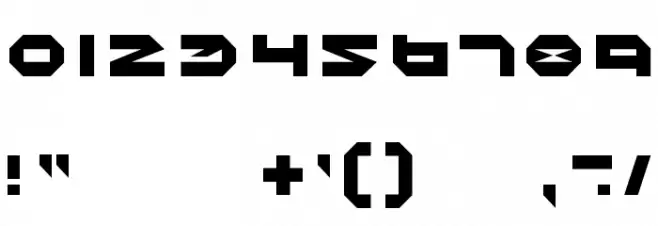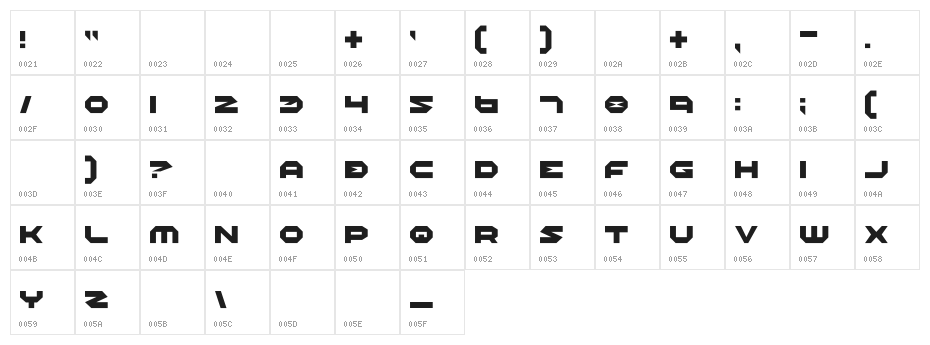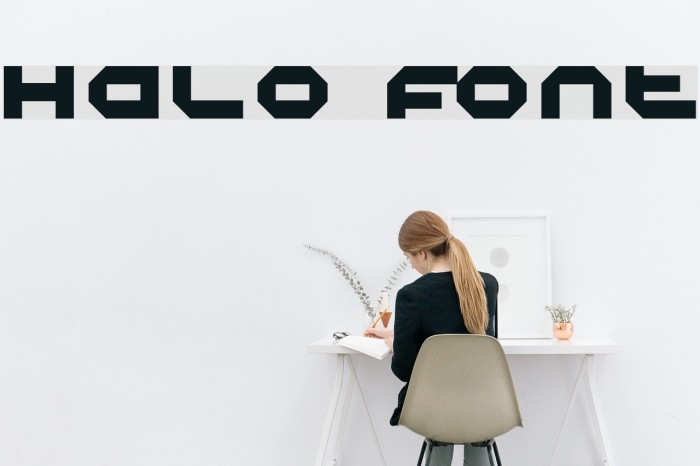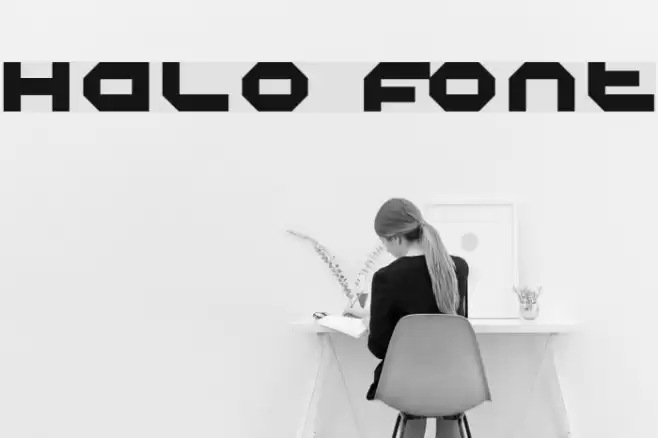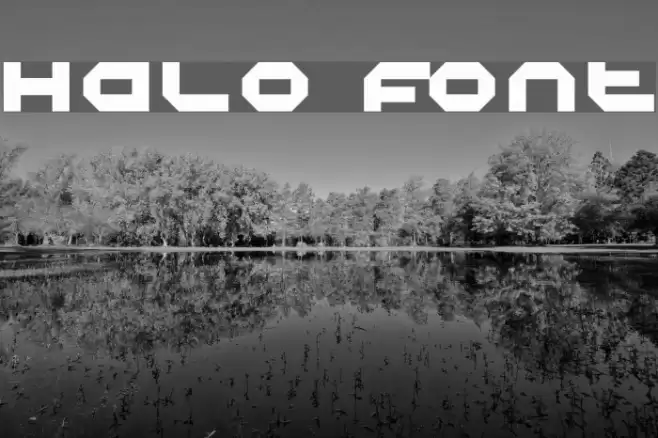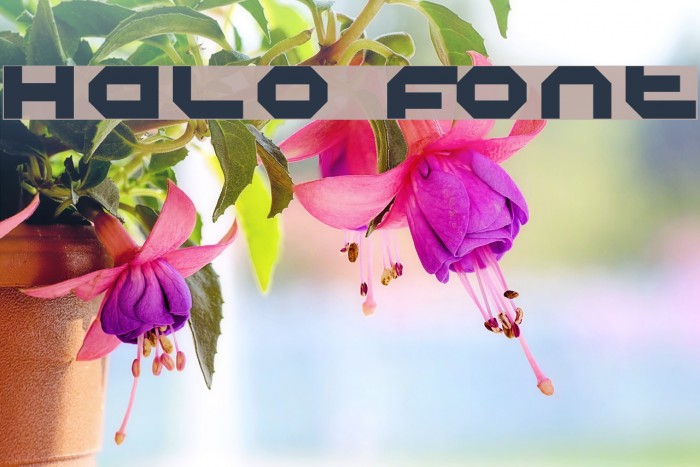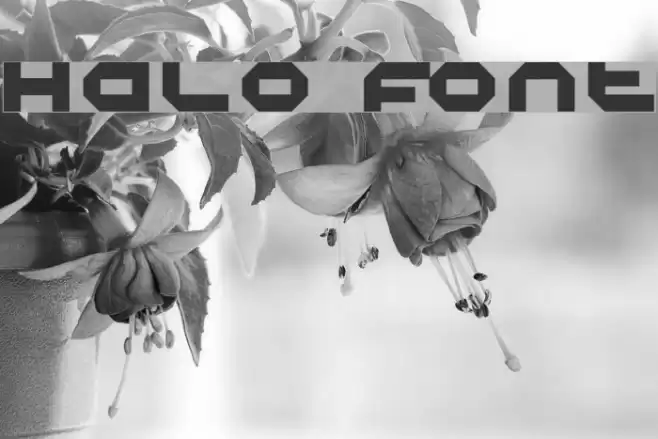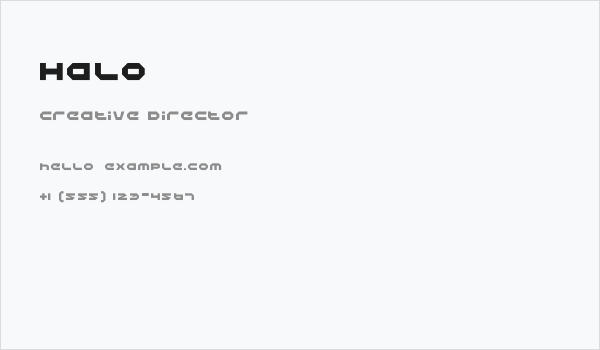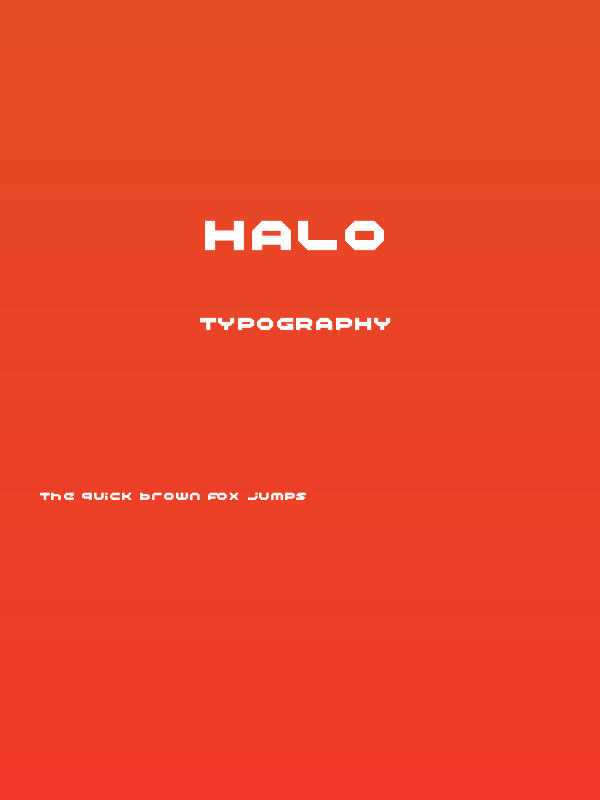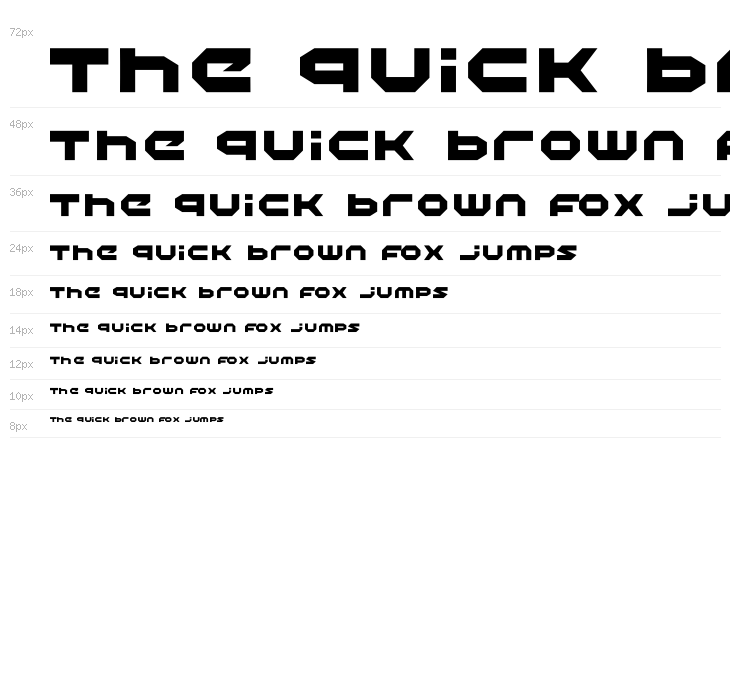
Halo Font
Halo Description
This font exhibits a bold and futuristic design, characterized by its geometric and angular shapes. The letters are constructed with sharp edges and a block-like appearance, giving it a strong and impactful presence. The uppercase and lowercase letters maintain a consistent style, with unique cutouts and angles that add a dynamic and modern feel. The numbers and special characters follow the same design principles, ensuring a cohesive look across all elements. This font is ideal for projects that require a bold statement and a contemporary aesthetic.
HALO UPPERCASE
HALO LOWERCASE
HALO OTHER CHARS
| Proposed Projects | Ideal for sci-fi themed designs, video game titles, tech branding, and modern posters. |